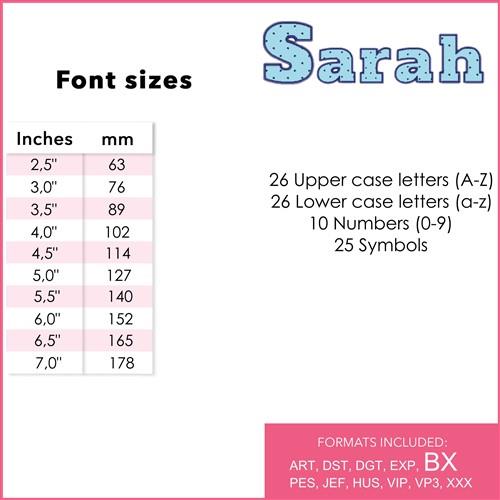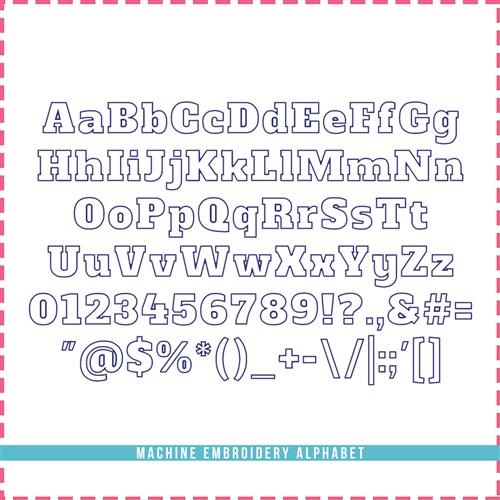
Maya Kreations is happy to present Sarah Applique Font machine embroidery font which has Playful applique machine embroidery font in light blue with a dotted texture, ideal for casual projects like children's clothing or home decor. Available in PES, DST, and 8 other formats. included. If you would like to view more embroidery fonts and alphabets please search our embroidery fonts page.